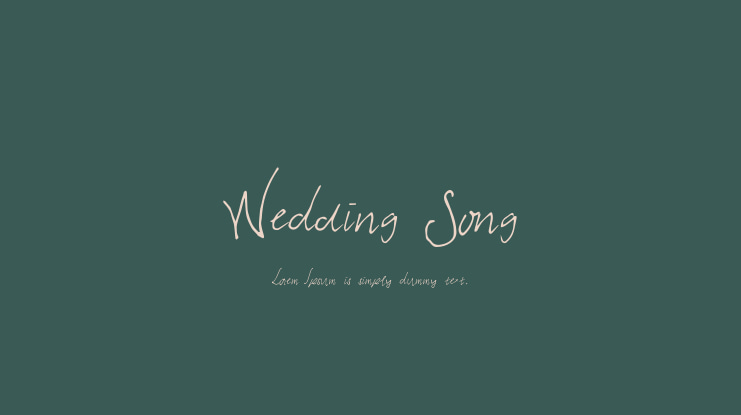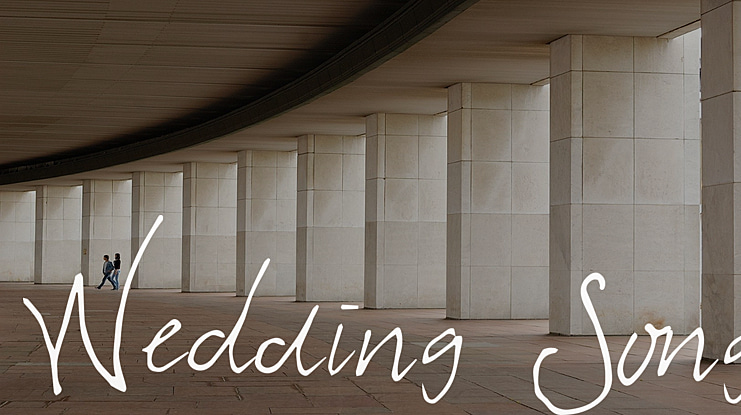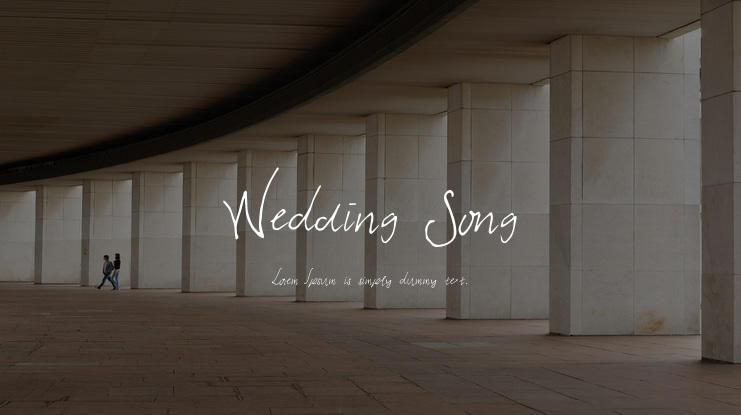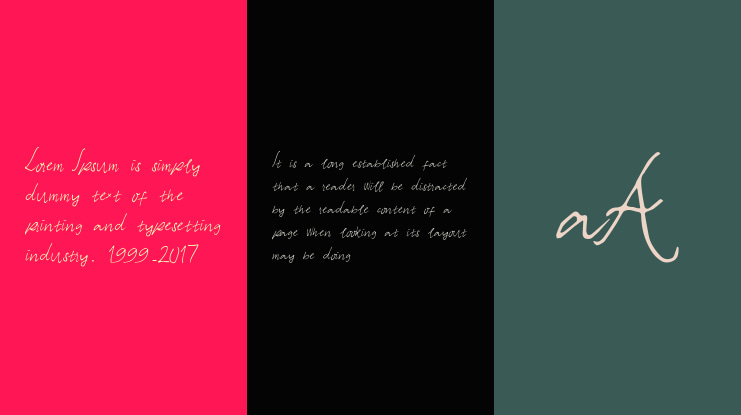
Wedding Song is a lovely handwritten font that dancing around the romance theme. This font is personally made to give your creative projects an intimate and sentimental touch.
Wedding Song Font is suitable for variety design projects, such as invitations, branding, social media posts, logo, advertisement, and so much more. Spread love with your design with Wedding Song Font!